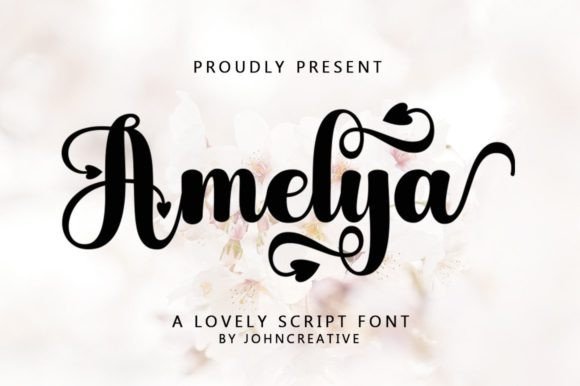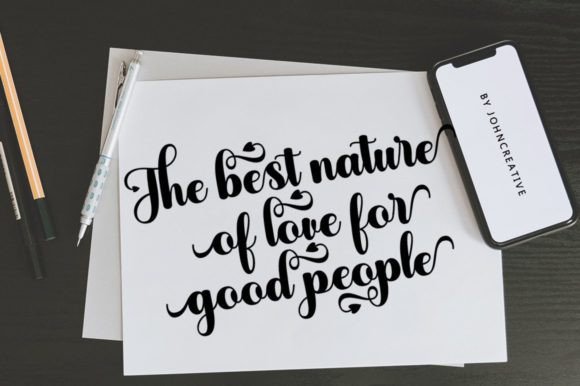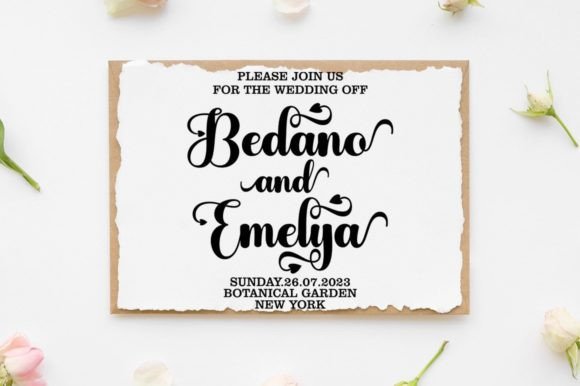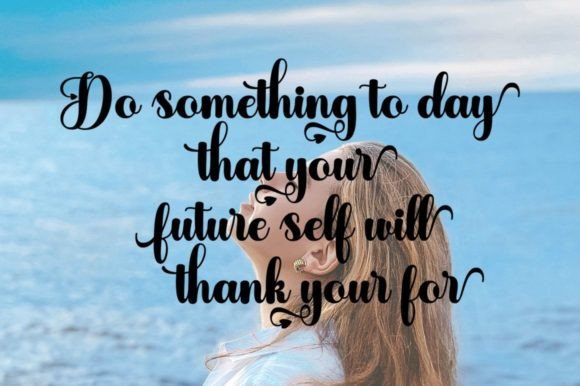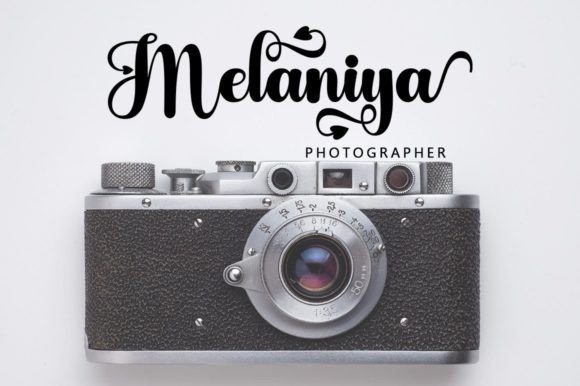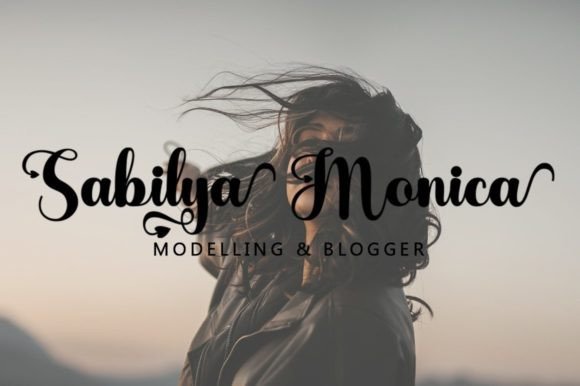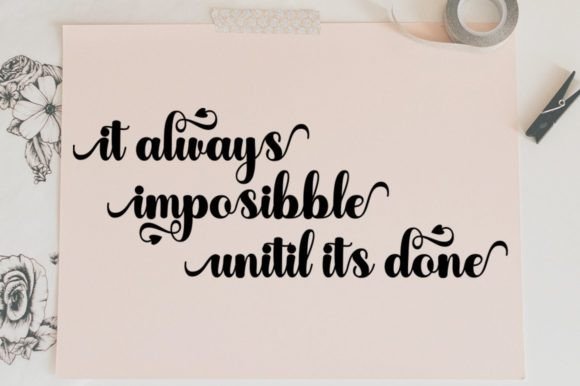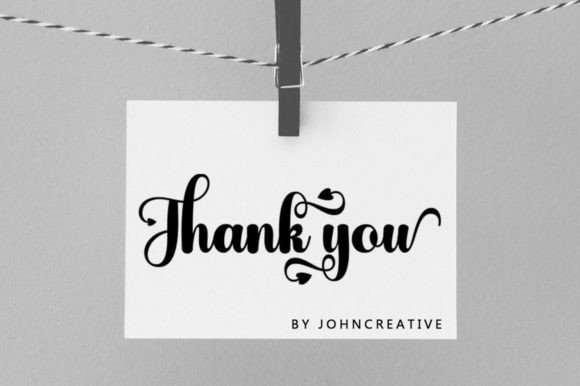
Amelya Font
About Amelya Font
“Amelya” is a sophisticated handwritten font designed to convey messages with confidence, authenticity, and charm. This versatile font has the ability to elevate a wide range of crafting ideas, from cards to branding, labels, and beyond.
The sophistication of “Amelya” is evident in its carefully crafted strokes and elegant style. The handwritten quality adds a personal touch to your text, creating a sense of authenticity and charm. This makes it suitable for various design applications where conveying a message with elegance and confidence is essential.
One notable feature is its PUA encoding, allowing easy access to all glyphs and swashes. This feature enhances the font’s versatility, providing you with the flexibility to customize and personalize your designs effortlessly. Whether you’re working on a logo that requires a touch of sophistication or crafting a label that demands authenticity, “Amelya” offers the tools to bring your creative vision to life.
Imagine “Amelya” gracing a brand’s packaging, where its sophisticated yet handwritten style communicates a blend of professionalism and authenticity. Picture it on cards, where it adds a charming and personalized touch to greetings. Envision it in branding materials, creating a visual identity that exudes confidence and style.
In summary, “Amelya” is more than just a font; it’s a design asset that enhances your crafting ideas with sophistication and charm. Whether you’re creating for print or digital media, let “Amelya” be the font that elevates your designs, making them stand out with confidence and authenticity.